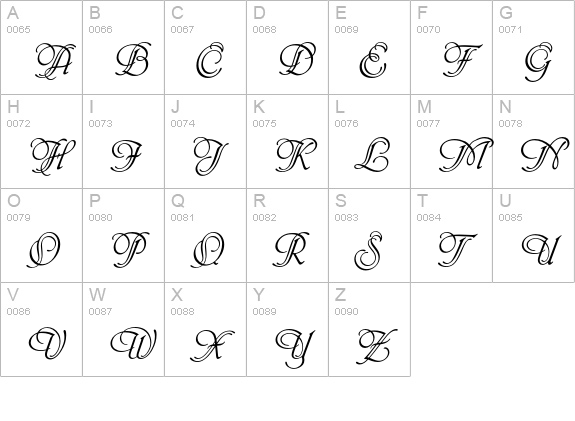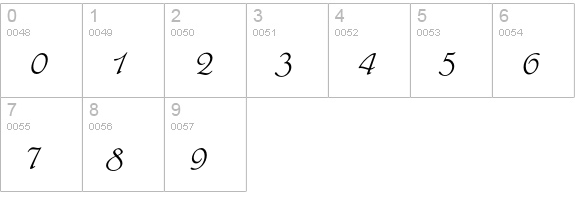
PhyllisEF-Initials Font Details
PhyllisEF-Initials font is a stunning decorative typeface that exudes elegance and sophistication. Its intricate and ornamental letterforms are inspired by the classic calligraphy styles of the past, making it perfect for adding a touch of vintage charm to any project. With its delicate strokes and intricate details, PhyllisEF-Initials font is a true work of art. Each character is meticulously crafted to create a harmonious balance between grace and grandeur. Whether used in invitations, logos, or headlines, this font will surely captivate and leave a lasting impression. What sets PhyllisEF-Initials font apart is not just its exquisite design, but also the fact that it is freely available to download at FontsMarket.com. This means that you can effortlessly add a touch of elegance to your creations without having to spend a dime. The accessibility of this font allows designers, creatives, and enthusiasts alike to explore its endless possibilities and unleash their creativity. Whether you are working on a wedding invitation, a branding project, or simply want to add a touch of sophistication to your designs, PhyllisEF-Initials font is the perfect choice. Its timeless beauty and freely available nature make it a valuable asset in any designer's toolkit. Download PhyllisEF-Initials font today from FontsMarket.com and embark on a journey of creativity and elegance. With its stunning design and the freedom to use it without any cost, this font is sure to elevate your designs to new heights. Let PhyllisEF-Initials font be your secret weapon in creating visually stunning and captivating projects.